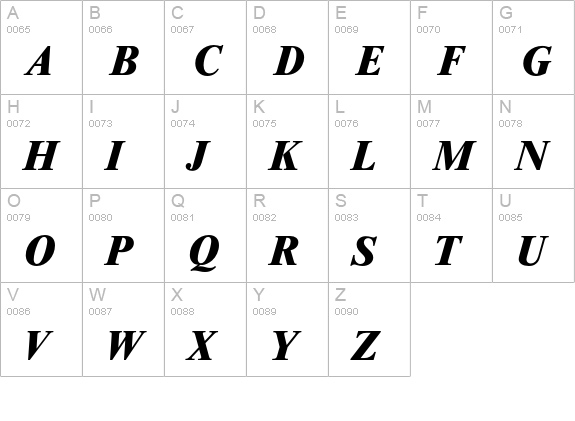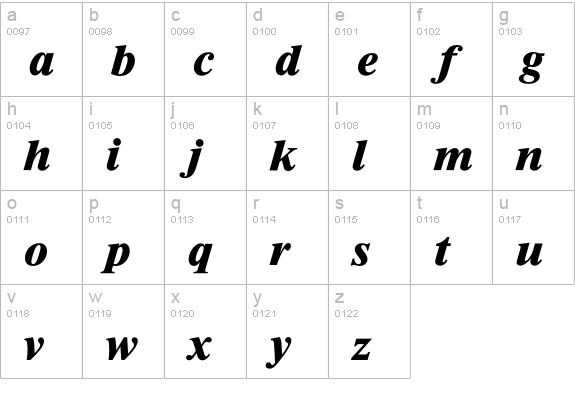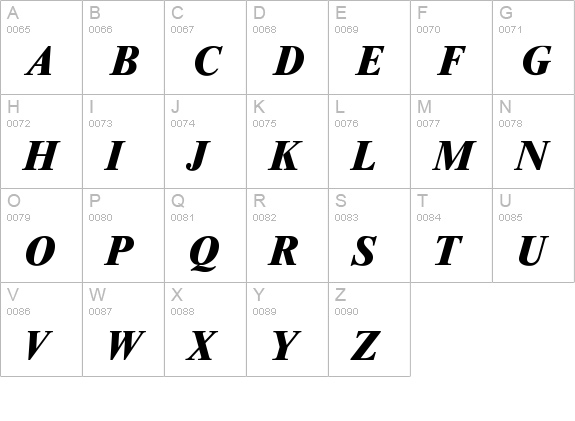
Riccione-BoldIta is a captivating and versatile font that exudes elegance and sophistication. Designed with precision and attention to detail, this font effortlessly combines boldness and italics, creating a stunning and unique visual impact. With its sleek and modern design, Riccione-BoldIta is perfect for a wide range of projects, from branding and advertising materials to editorial layouts and packaging designs. Its clean lines and distinctive curves lend a contemporary touch to any composition, while its boldness adds an element of strength and confidence. One of the best features of Riccione-BoldIta is that it is free to download at FontsMarket.com. This means that you can enjoy the beauty and versatility of this font without any cost or restrictions. Whether you are a professional designer, a creative enthusiast, or simply someone looking to enhance your projects and documents, Riccione-BoldIta is readily accessible and available for you to use. The font's versatility extends to its language support, making it suitable for a global audience. It includes a wide range of glyphs and characters, ensuring that you can effectively communicate your message in various languages and accents. Riccione-BoldIta's legibility and readability make it an ideal choice for both print and digital media. Its bold and italics combination allows for emphasis and hierarchy in your designs, while maintaining a cohesive and harmonious overall aesthetic. Experience the power and beauty of Riccione-BoldIta by downloading it for free at FontsMarket.com. Discover endless possibilities and unleash your creativity with this exceptional font. Elevate your designs to new heights with this captivating and freely available typeface.